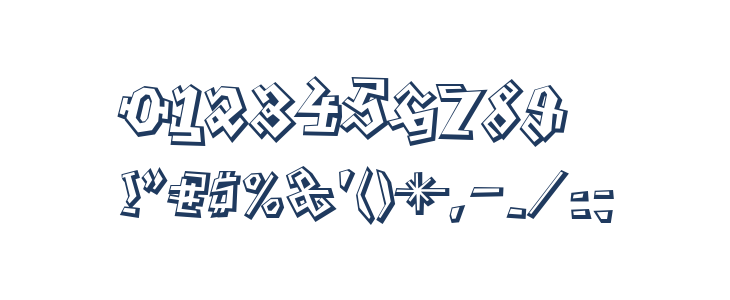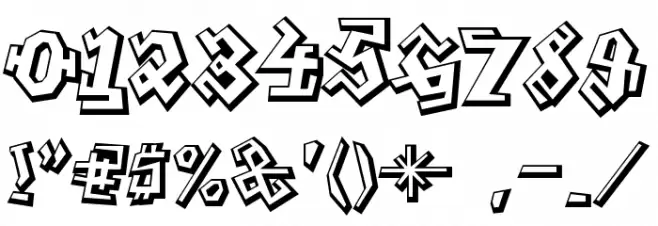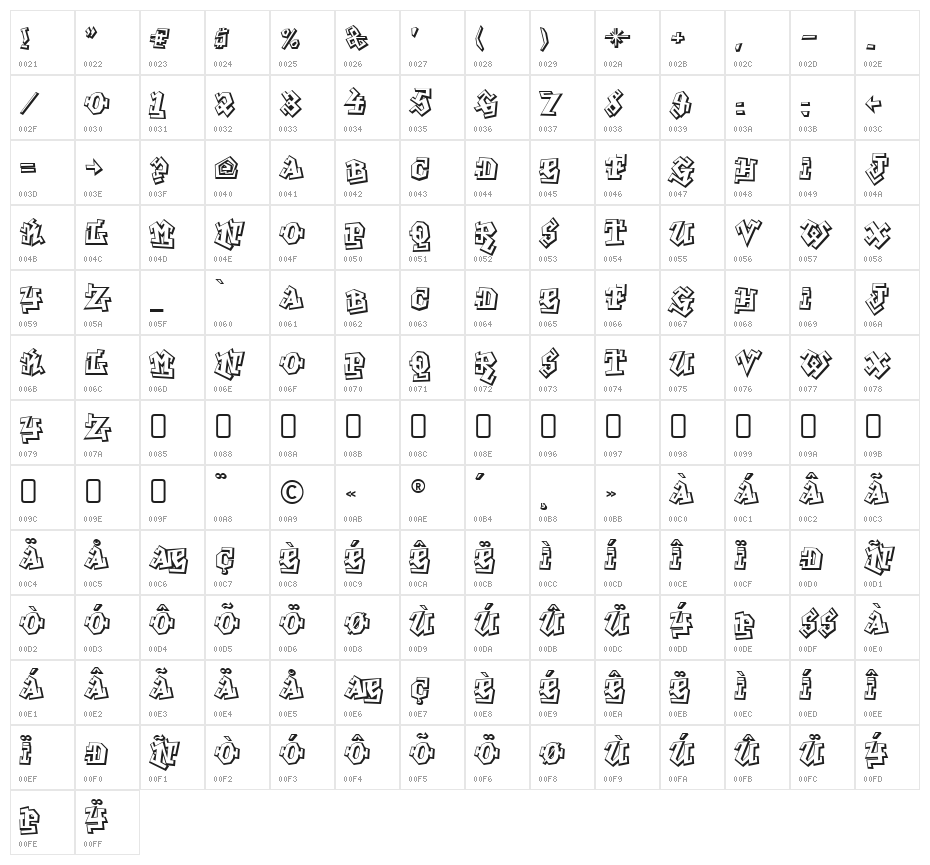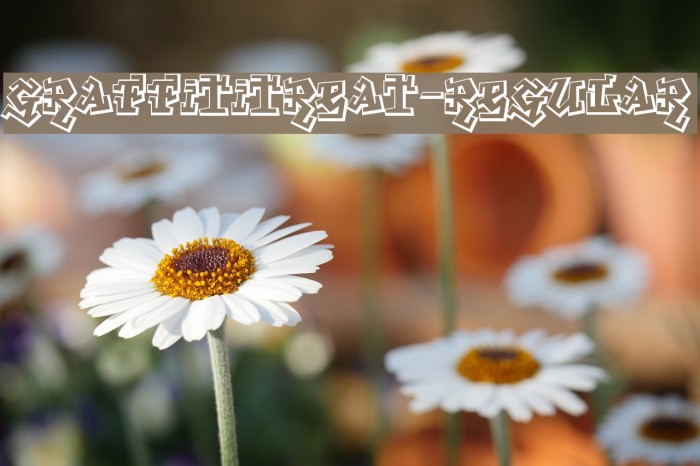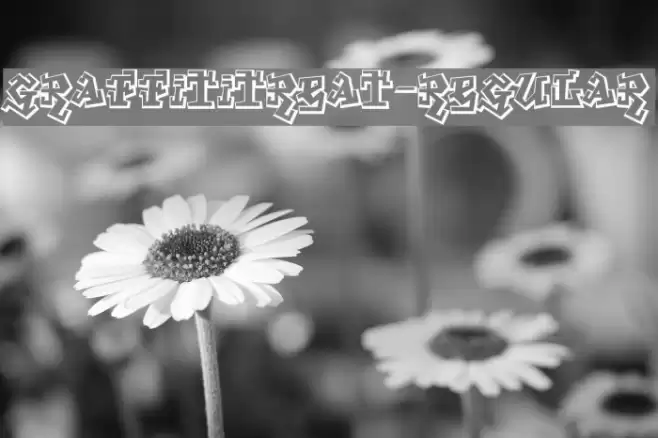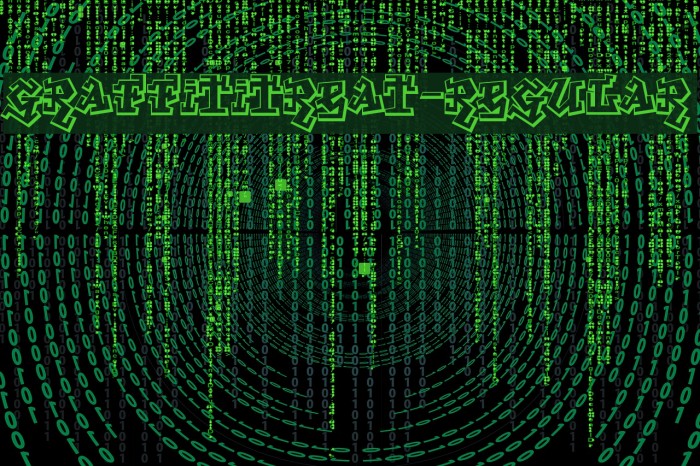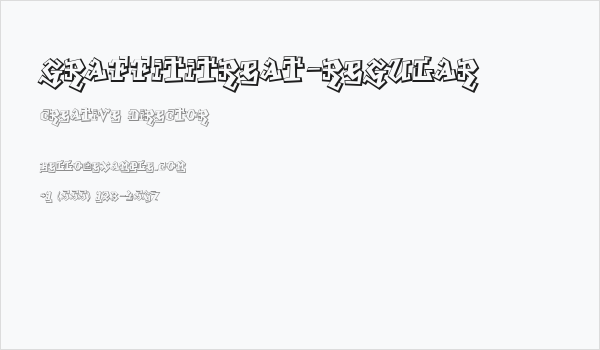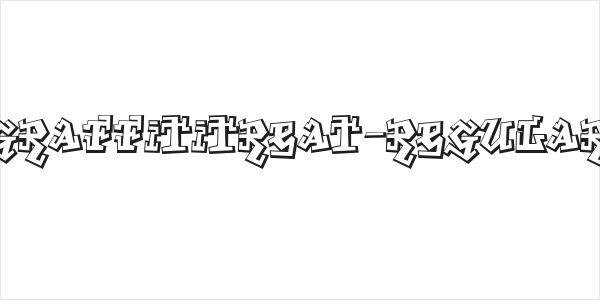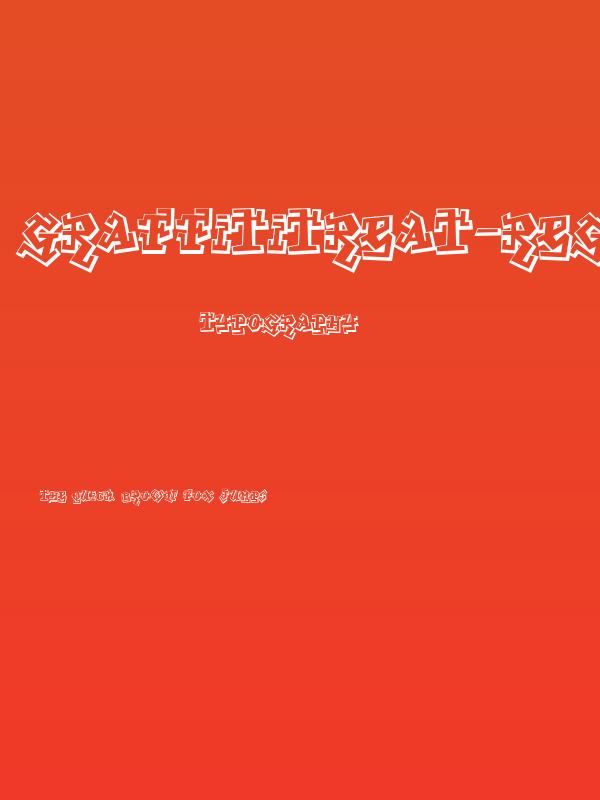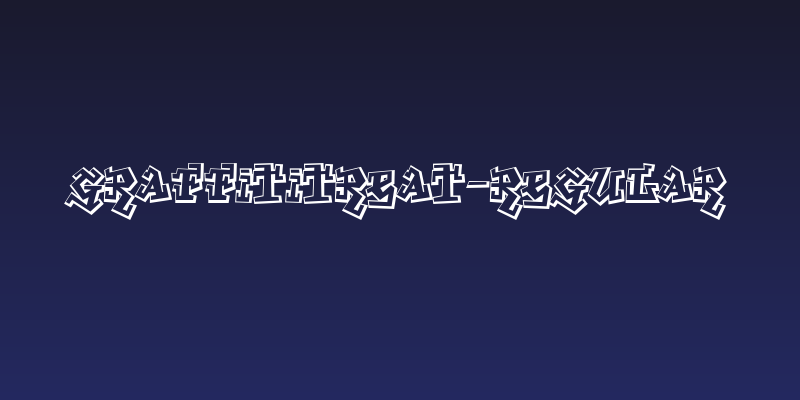
GraffitiTreat-Regular Font
GraffitiTreat-Regular Description
This font exhibits a bold and dynamic graffiti style, characterized by its angular and edgy letterforms. Each character is outlined with a thick black border, giving it a three-dimensional appearance that stands out prominently. The letters are designed with sharp, geometric shapes that convey a sense of movement and energy, typical of street art aesthetics. The uppercase and lowercase letters maintain a consistent style, with the numbers and special characters following suit, ensuring a cohesive look across all glyphs. The font's unique style makes it ideal for projects that require a bold, urban, and artistic touch.
| Overall Style | Urban, Artistic, Energetic |
| Use Case | Logos, Posters, Headlines |
| Proposed Projects | Ideal for street art designs, urban-themed posters, music album covers, and youth-oriented branding. |